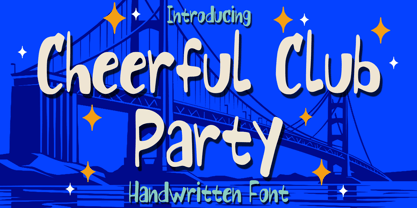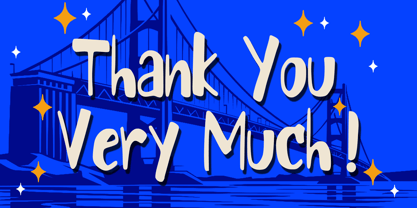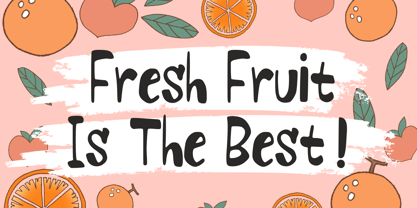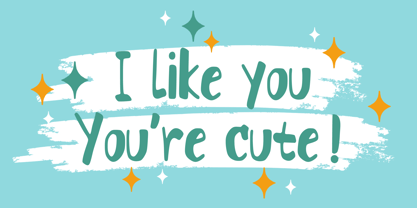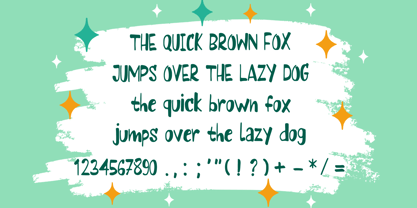
Cheerful Club Party
by Mvmet
The Cheerful Club Party Font Family was designed by Gabriel Valentinus and published by Mvmet. Cheerful Club Party contains 1 styles. More about this family
Cheerful Club Party is a whimsical and lively font that aims to rocket your design projects straight into the stratosphere of creativity. This dynamic font, bursting with effortless charm, is suitable for a broad spectrum of design ideas. Imagine it transforming your boring sticker designs into vibrant masterpieces, or narrating fun stories on magazine and book covers. Picture it breathing life into your t-shirt prints, giving your logo designs an unparalleled edge, or delivering a punch of pizza to your comics and cartoons. Cheerful Club Party, more than a font, is your secret weapon to leave an unforgettable mark on your designs. Its enchanting quality promises to inject a jolt of fun and super cool vibes.
Designers: Gabriel Valentinus
Foundry: Mvmet